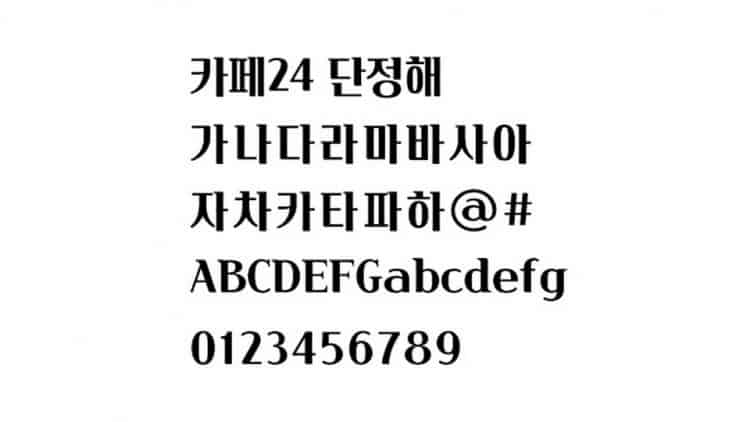
Danjunghae Sans Serif Font is a sans serif and humanist typeface with a clean design. Inspired by the beauty and elegance of modern style typefaces. Danjunghae would be suitable for a range of display usages (logo, poster, headlines, quotes, etc.).